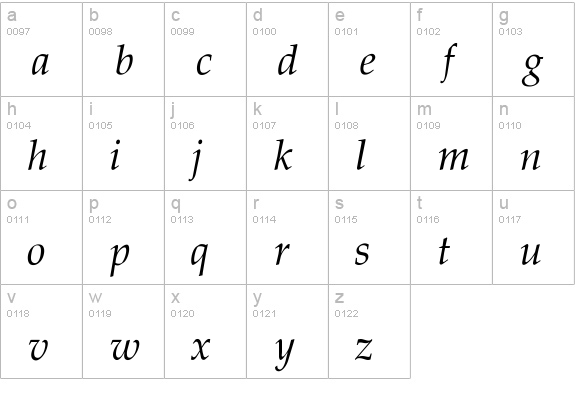
PalladiaItalic Font Details
PalladiaItalic font is a stunning and elegant typeface that effortlessly combines classic charm with a touch of modern sophistication. Its graceful curves and delicate strokes exude a sense of refinement and grace, making it the perfect choice for any design project that requires a touch of elegance. This exquisite font is meticulously crafted to capture the essence of timeless beauty, with its perfectly balanced letterforms and flowing calligraphic style. The italicized slant adds an extra touch of flair, lending a sense of movement and grace to every character. PalladiaItalic font is not only visually captivating but also highly versatile. It is suitable for a wide range of applications, from wedding invitations and formal event announcements to branding and logo design. Its timeless appeal makes it a perfect choice for both print and digital media. The best part? PalladiaItalic font is freely available to download at FontsMarket.com. This means that you can enhance your design projects with this stunning font without any cost. Whether you're a professional designer or a hobbyist, having access to high-quality fonts like PalladiaItalic can greatly elevate the visual impact of your work. So why wait? Download PalladiaItalic font today and unlock the beauty and elegance it brings to your designs. With its timeless appeal and availability for free, this font is a must-have for every designer's toolkit. Let PalladiaItalic font add a touch of sophistication and charm to your next project.